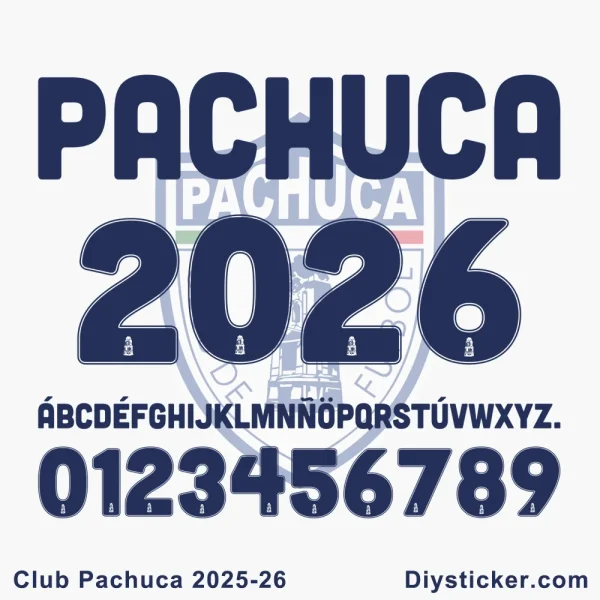
Pachuca 2025-26 Font Downloads
Unleash the spirit of football with the authentic Pachuca 2025-26 Font. This meticulously crafted typeface captures the energy and modernity of the club, making it the perfect choice for fans, designers, and creators working on official-looking projects.